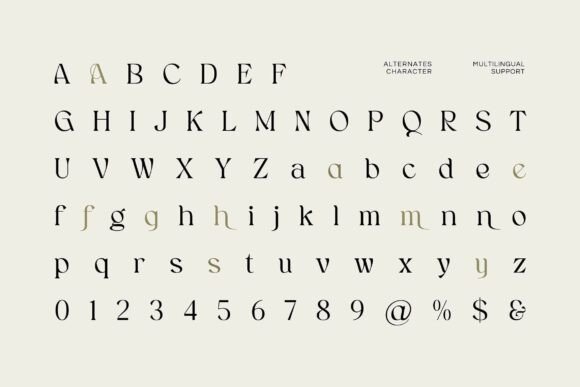
I still remember the frustration of working on a project, hours spent crafting the perfect layout, only to realize that the font I chose wasn’t quite right. The client wanted something elegant, yet modern; sophisticated, yet approachable. I scoured the internet, tried font after font, but nothing seemed to fit. That was until I stumbled upon Gadhen, a modern aesthetic display font that has since become my go-to for editorial layouts, packaging, and luxury product design.
Introducing Gadhen: A Masterclass in Elegance and Modernity
Gadhen is a stunning display font that perfectly marries classic elegance with modern flair. Each letter is meticulously crafted with sharp serifs and graceful curves, delivering a harmonious balance between sophistication and contemporary design. This font is perfect for designers, crafters, and creative hobbyists looking to elevate their projects with a sense of artistry, confidence, and refined modernity.
So, what makes Gadhen so special? Here are a few things I love:
- ✨ Sharp serifs and elegant curves: Gadhen’s unique design elements make it perfect for editorial layouts, packaging, and luxury product design.
- ✅ Highly versatile: This font works beautifully for magazine covers, fashion branding, logo design, wedding invitations, and social media graphics.
- 💫 OpenType features: Gadhen supports a range of OpenType features, including glyphs and stylistic alternates, making it easy to customize and adapt to your project’s needs.
And, like any font, it’s not without its quirks:
- 🤔 Limited use for body text: While Gadhen is stunning as a display font, it’s not ideal for body text due to its elegant, yet condensed design.
- ⚠️ Requires careful kerning: As with any font, careful attention to kerning is necessary to ensure that Gadhen looks its best.
The Story Behind Gadhen: Designer Inspiration
Gadhen was designed with the goal of creating a font that would effortlessly bridge the gap between classic elegance and modern sophistication. Inspired by the ornate details of luxury packaging and the clean lines of modern editorial design, Gadhen’s creator aimed to craft a font that would be both versatile and refined.
Q: What type of projects is Gadhen best suited for?
A: Gadhen is perfect for editorial layouts, packaging, luxury product design, fashion branding, logo design, wedding invitations, and social media graphics.
Q: Does Gadhen support OpenType features?
A: Yes, Gadhen supports a range of OpenType features, including glyphs and stylistic alternates.
Q: Can I use Gadhen for body text?
A: While Gadhen is stunning as a display font, it’s not ideal for body text due to its elegant, yet condensed design.
Q: Is Gadhen easy to read?
A: Gadhen is designed to be elegant and refined, but its legibility may vary depending on the size and context in which it’s used.